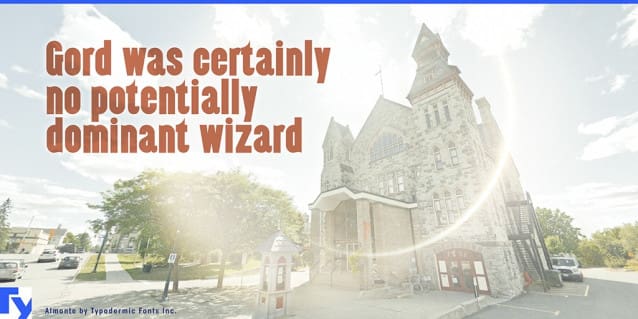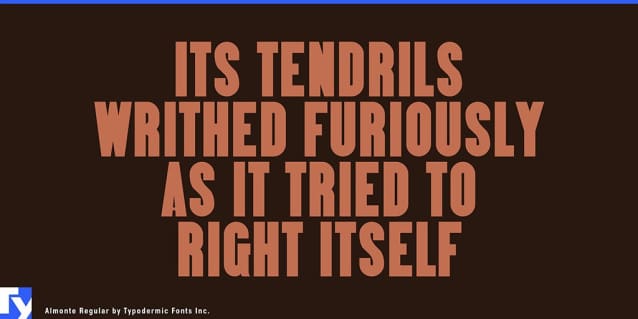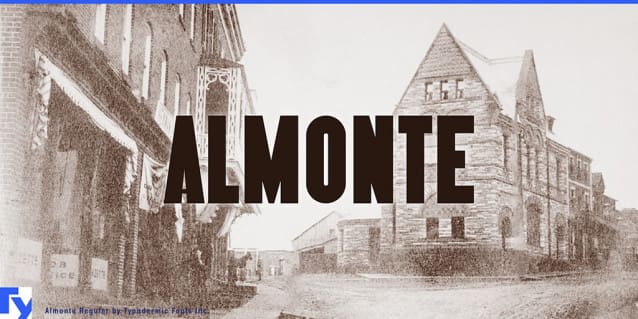
Almonte Font
Almonte Font, like a transdimensional goat, never existed in the real barnyard world. This wooden farm typeface has never seen an actual piece of wood, making it great for steampunk or other gonzo-historical themes. Almonte is available in standard, woodgrain, and snow finishes. Some Latin-based European writing systems are supported, including the following languages. Afaan Oromo, Afar, Afrikaans, Albanian, Alsatian, Aymara, Basque, Bemba, Bikol, Breton, Cape Verdean, Creole, Catalan, Cebuano, Chamorro, Chavacano, Danish, Dawan, Dholuo, Dutch, English, Estonian, Faroese, Fijian, Filipino, Finnish, French, Frisian, Friulian, Galician, Genoese, German, Guadeloupean Creole, Haitian Creole, Hiligaynon, Icelandic, Ilocano, Indonesian, Irish, Italian, Jamaican, Kaqchikel, Kikongo, Kinyarwanda, Kirundi, Lombard, Low Saxon, Luxembourgish, Makhuwa, Malay, Ndebele, Neapolitan, Norwegian, Novial, Occitan, Papiamento, Piedmontese, Portuguese, Quechua, Rarotongan, Romansh, Sango, Saramaccan, Sardinian, Scottish Gaelic, Shona, Sicilian, Silesian, Slovak, Slovenian, Somali, Sotho, Spanish, Swahili, Swazi, Swedish, Tagalog, Tetum, Tshiluba, Tsonga, Tswana, Tumbuka, Uzbek (Latin), Venetian, Võro, Walloon, Waray-Waray, Wayuu, Xhosa, Yapese, Zapotec Zulu and Zuni.